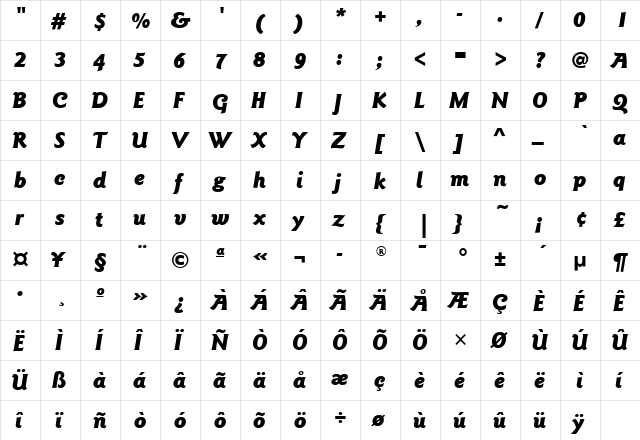
GoudySansMdITC Black Italic Font Preview
GoudySansMdITC Black Italic
Design Context for GoudySansMdITC Typeface
GoudySansMdITC is a composed and adaptable typeface that performs quietly and consistently across a wide range of design contexts. The slanted form adds forward momentum and visual energy.
Pro Tip: Use GoudySansMdITC for emphasis, pull quotes, and subheadings where its slanted energy can add rhythm to the layout.